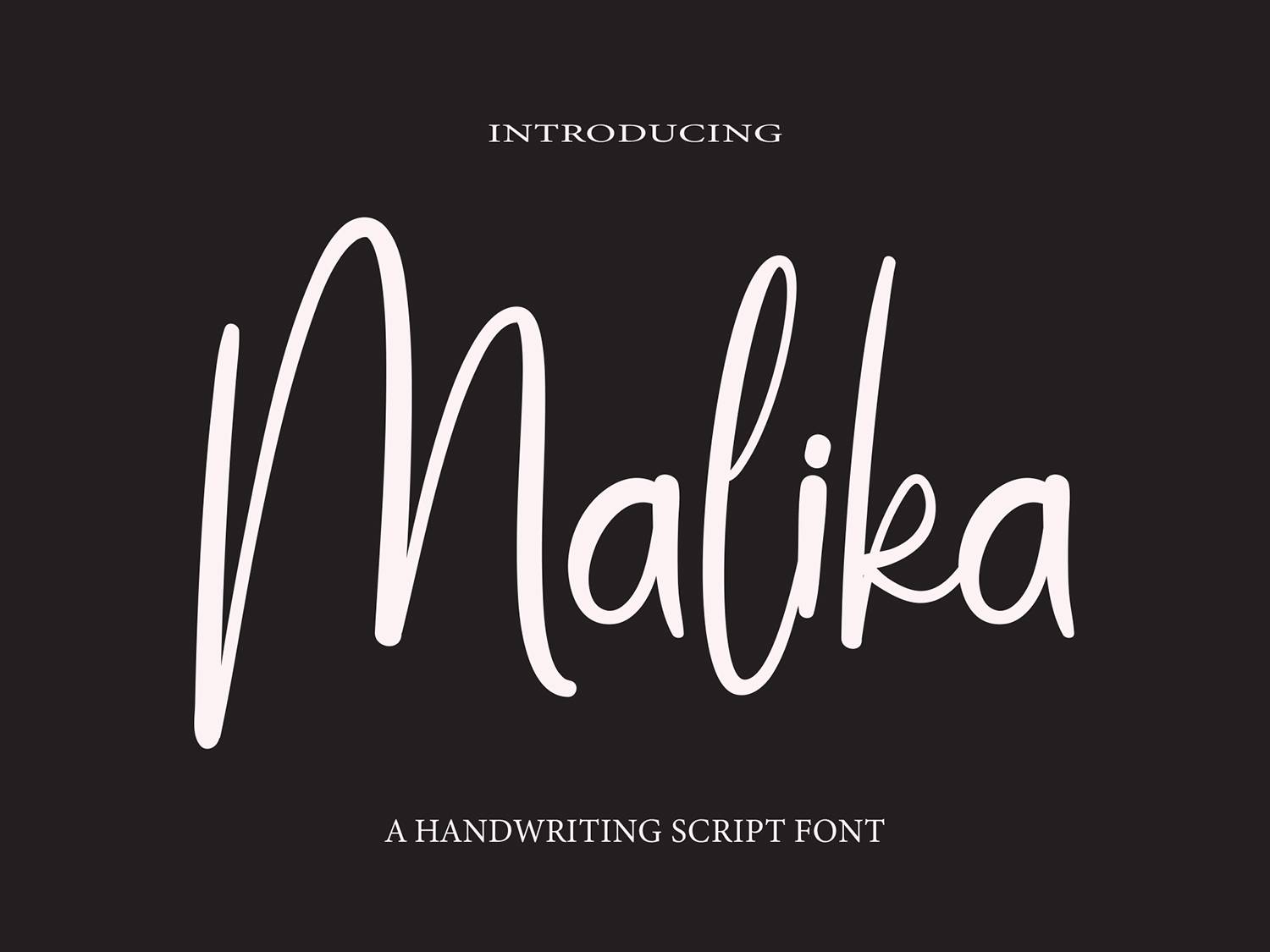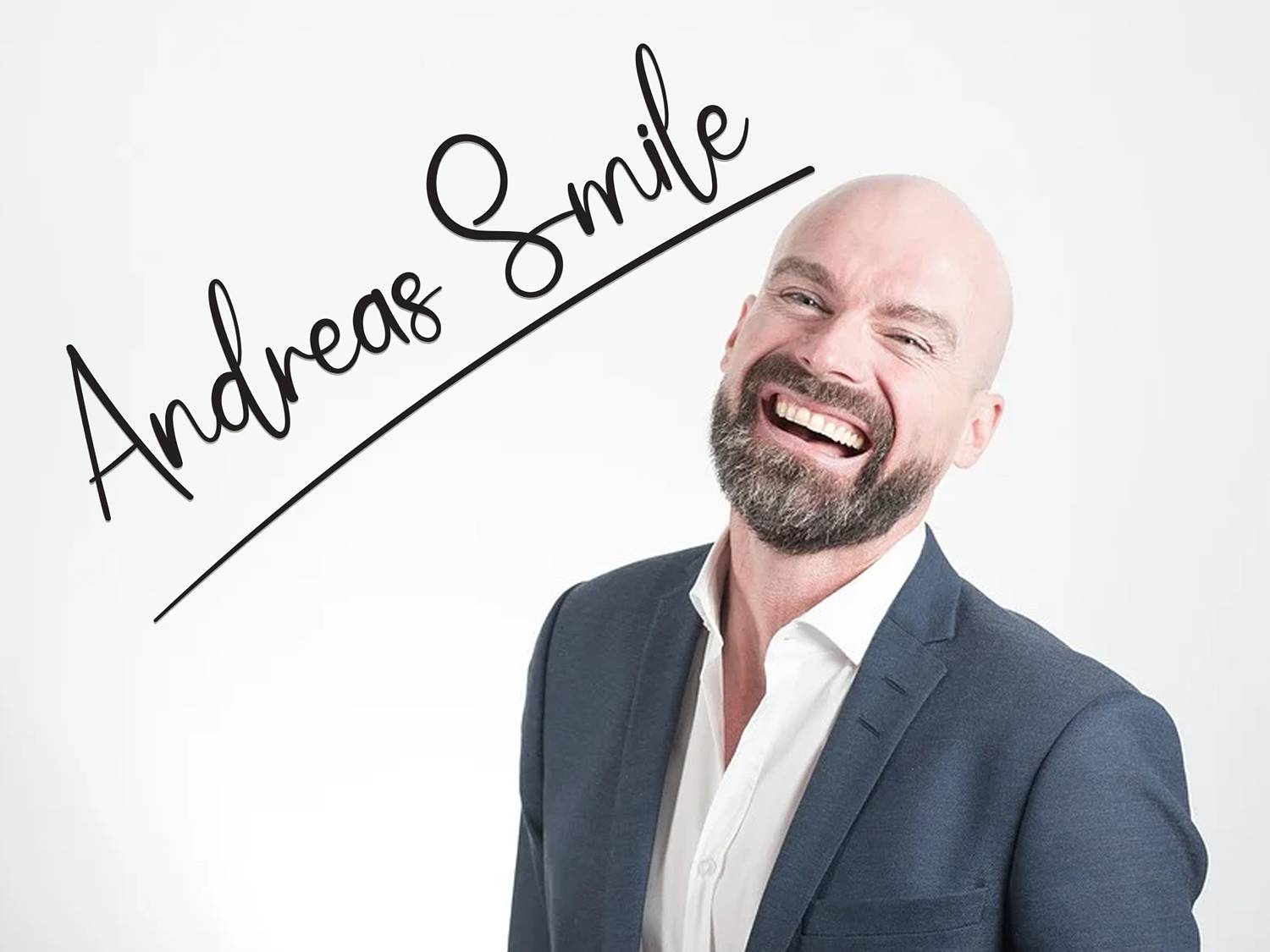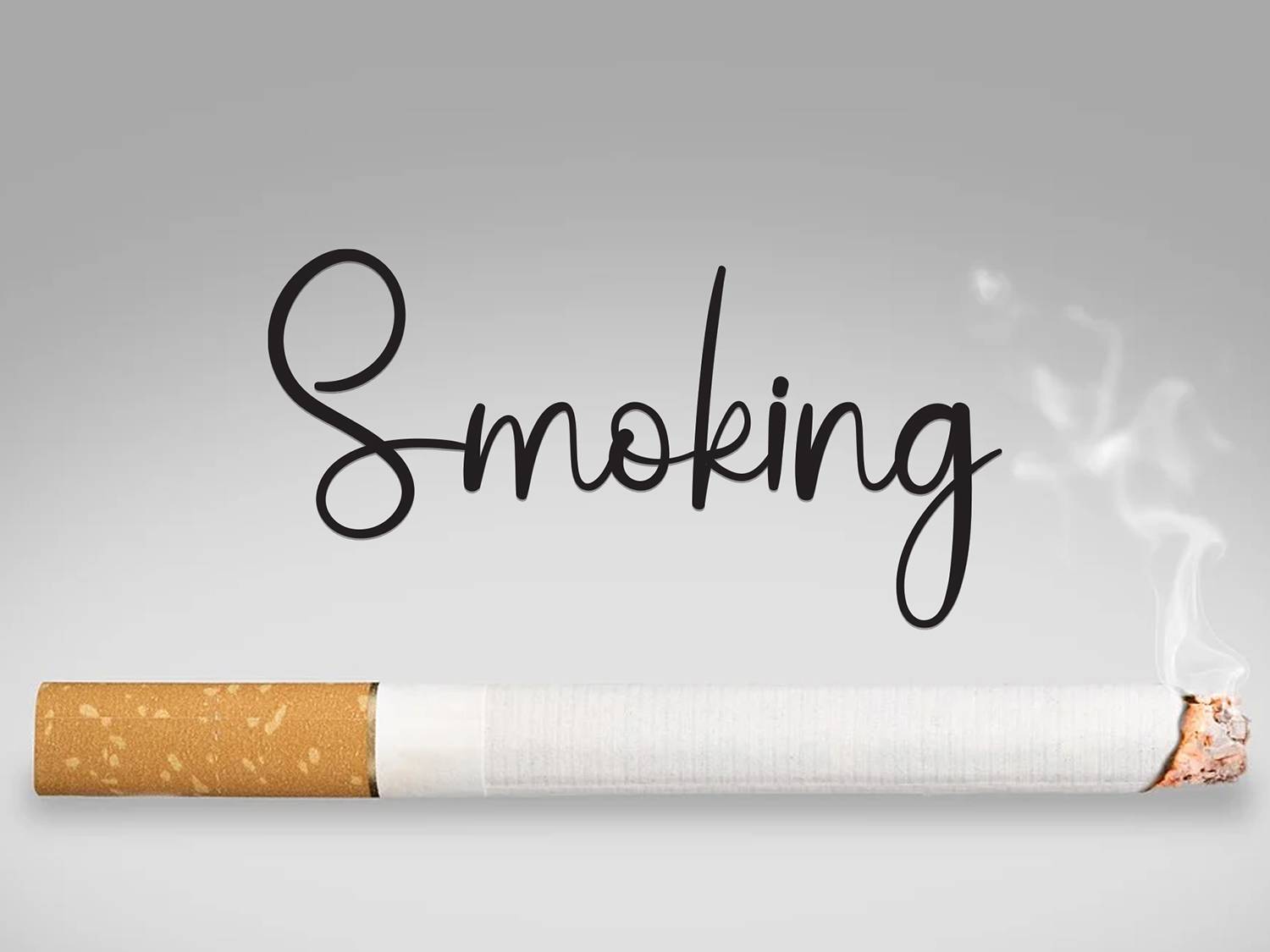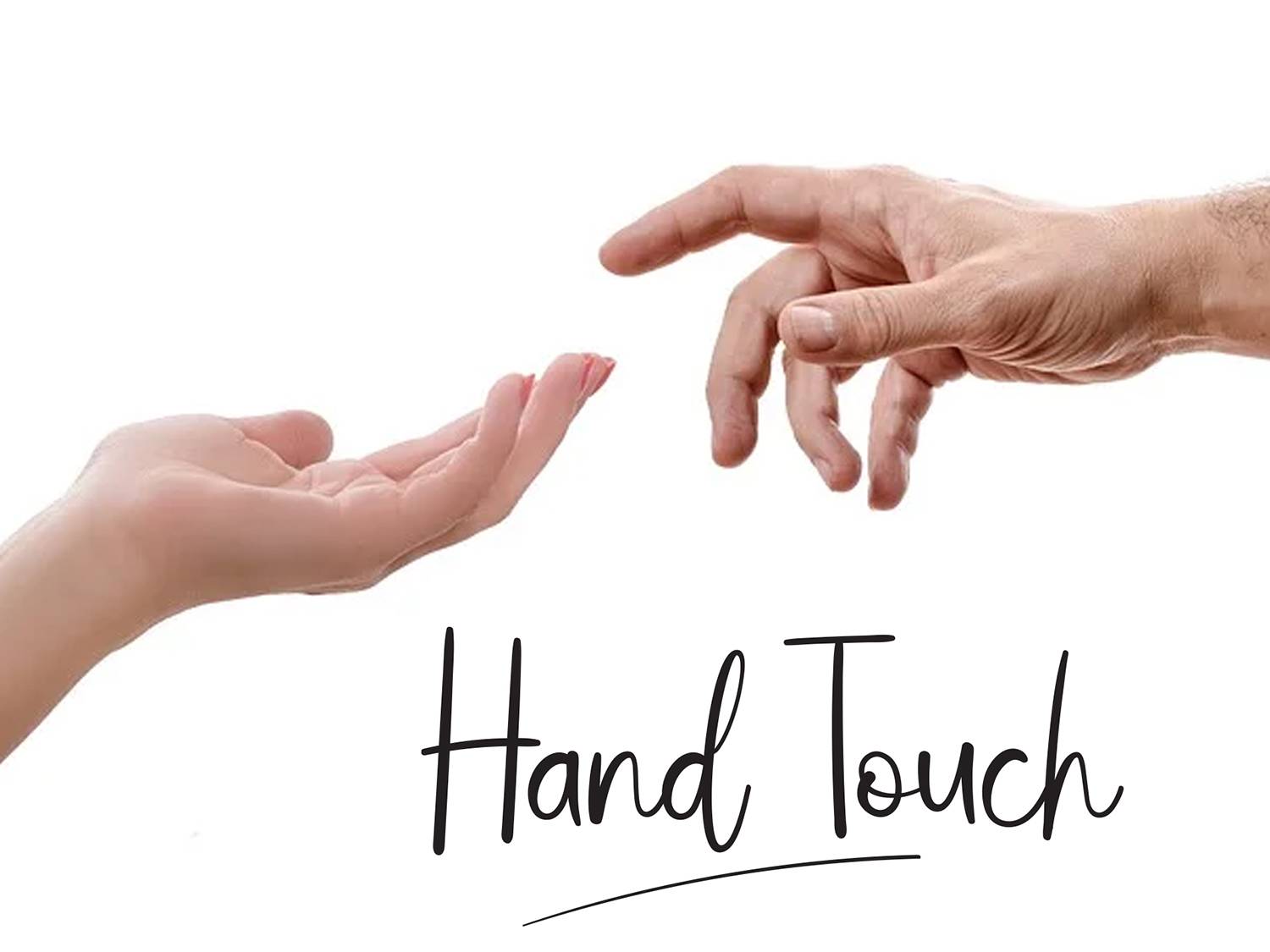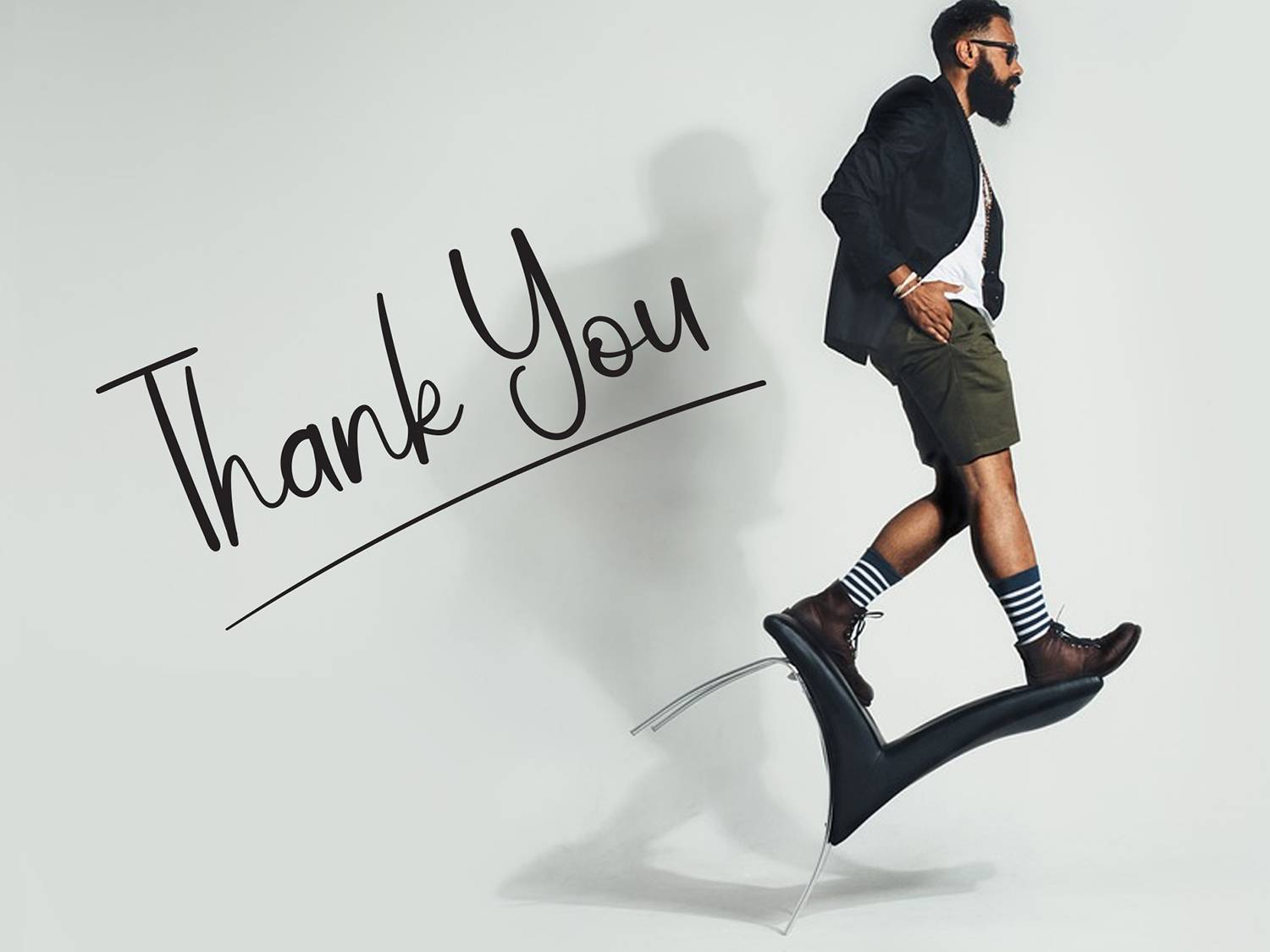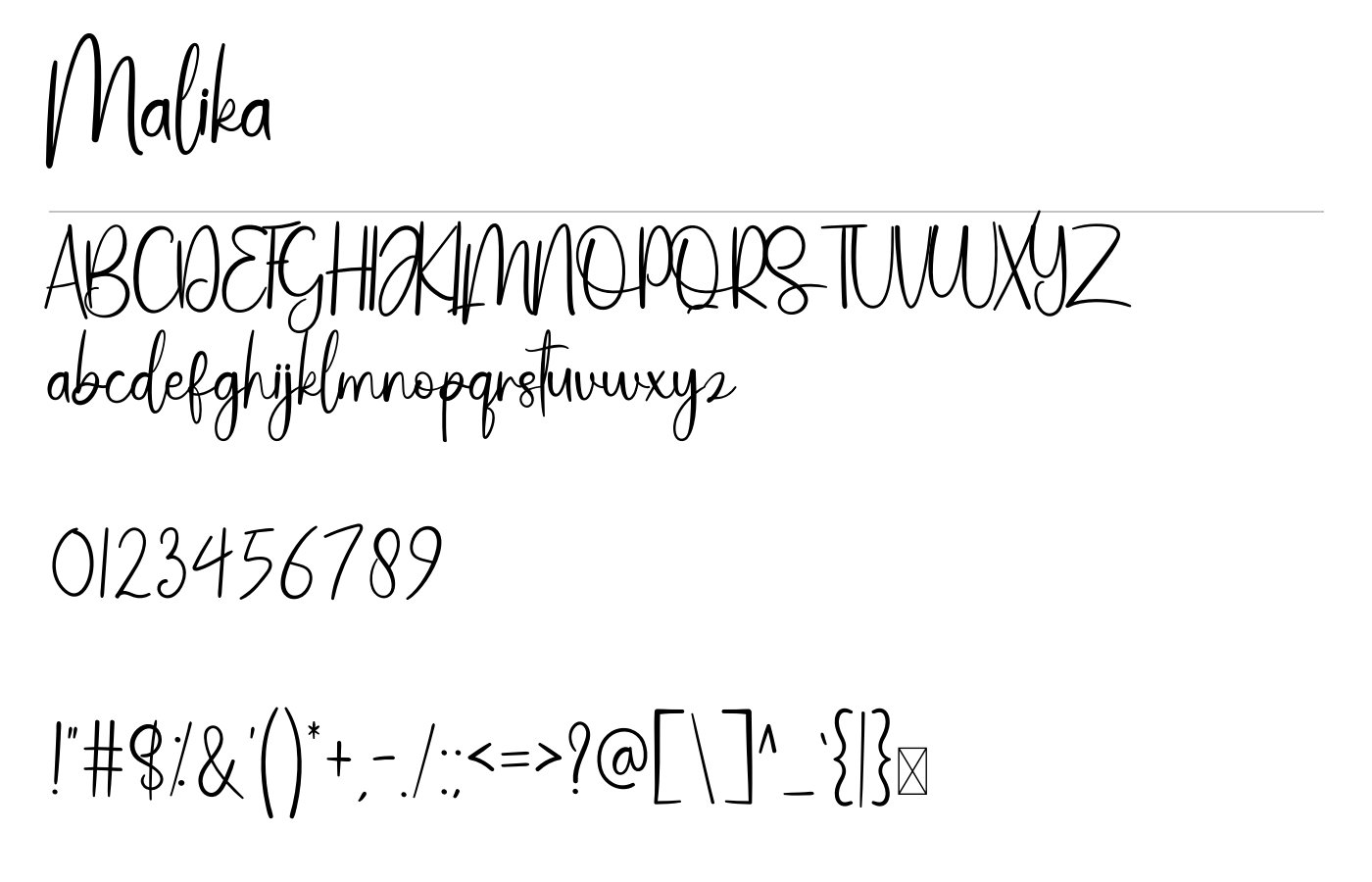
Malika is a playful and casual handwritten script font with a tall, narrow structure and smooth, flowing strokes that give it a friendly and approachable personality. Its light weight and airy letter spacing make it perfect for adding a personal, informal touch to designs such as invitations, branding for creative businesses, and social media graphics. This font works best in display settings where a whimsical, authentic handwritten feel is desired.
Malika Font
About Malika Font